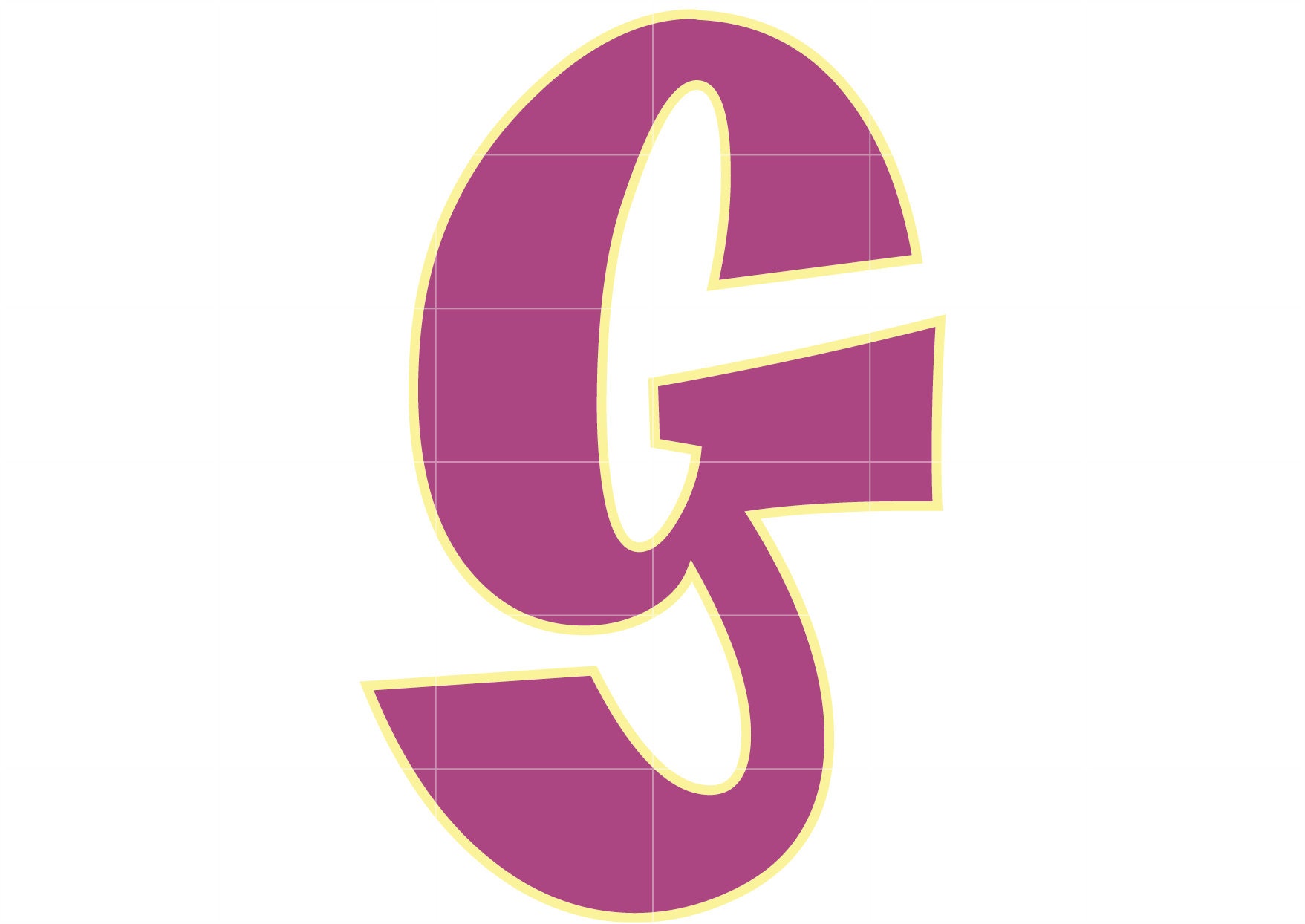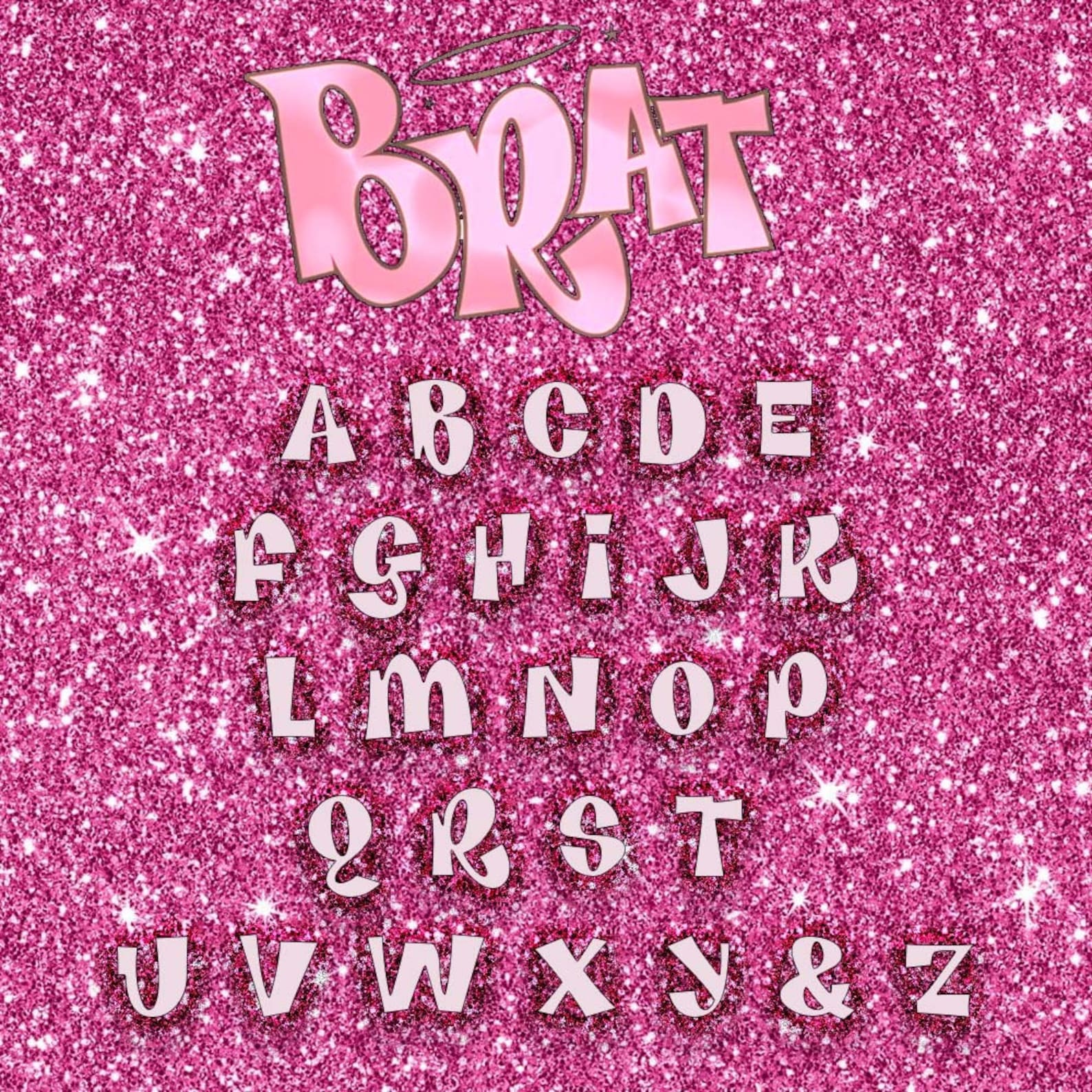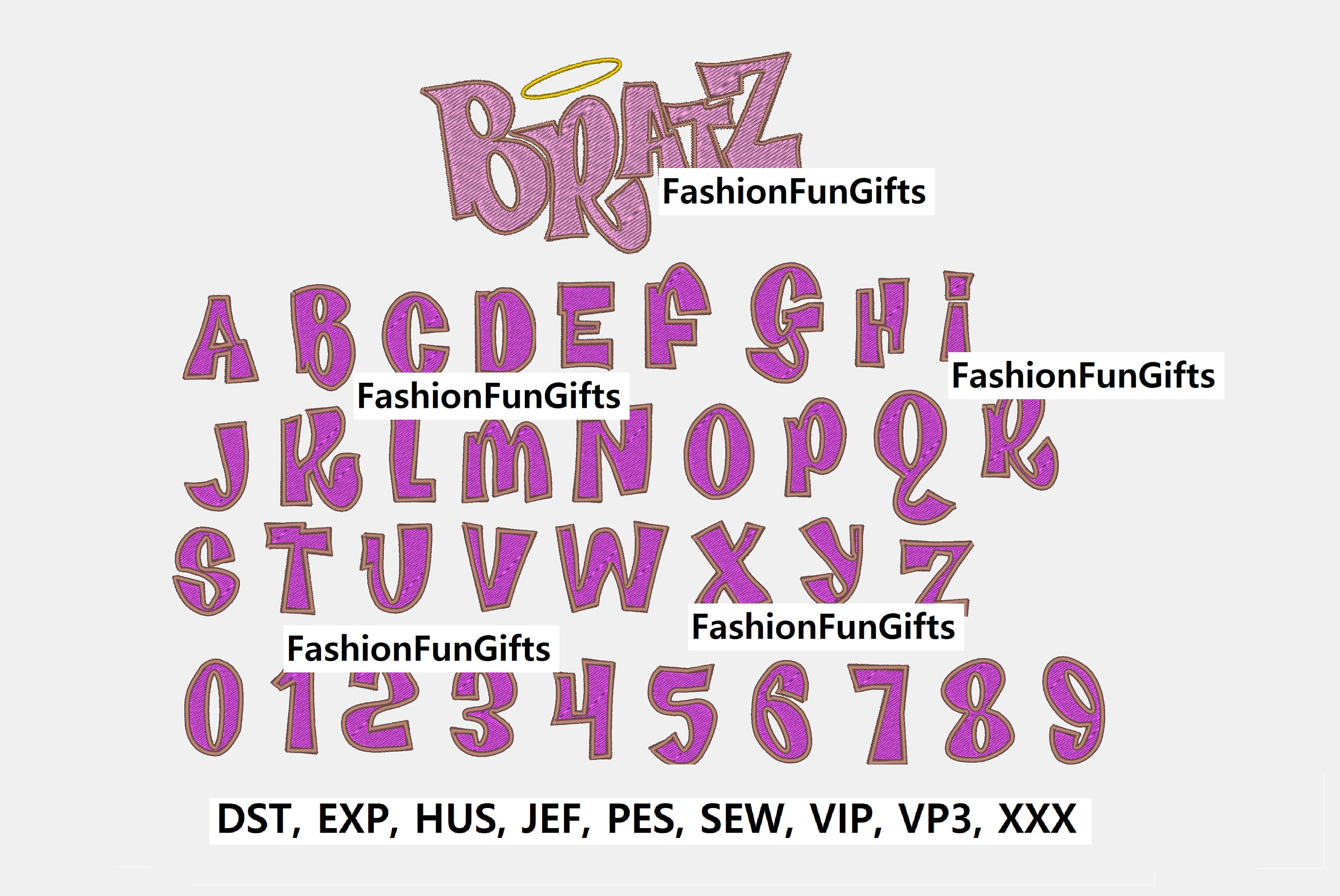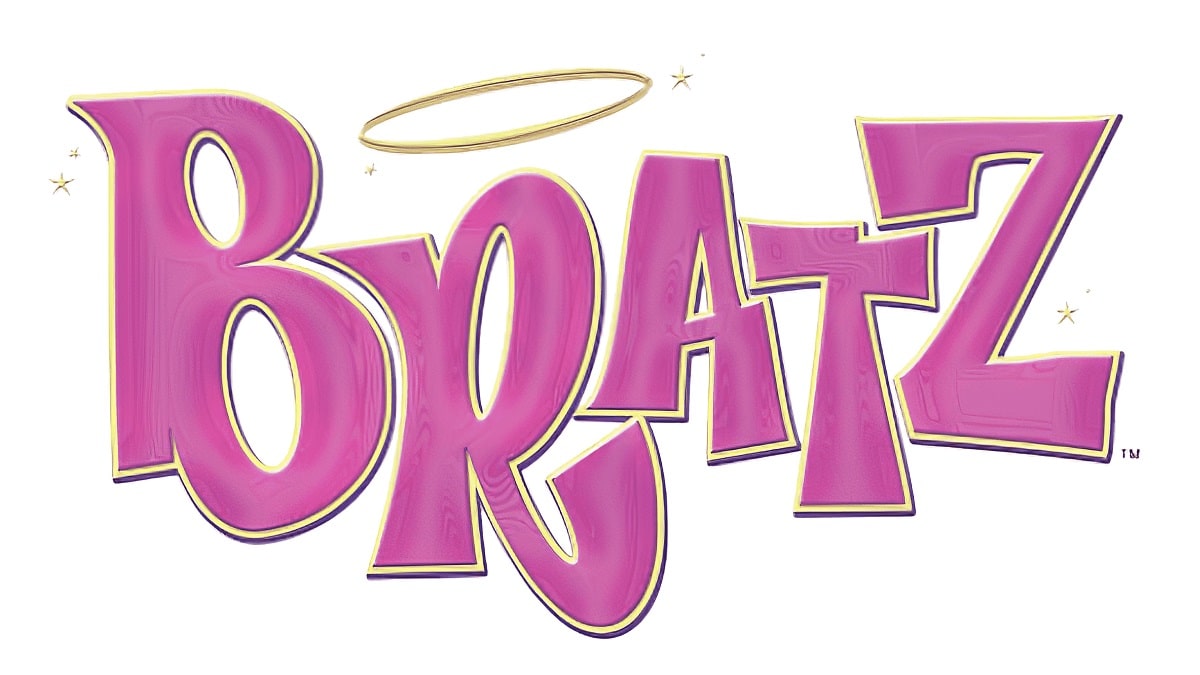
Bratz Doll Font
Bratz Doll Font - Web the bratz font is a funky decorative font inspired by the popular lettering of the bratz dolls. Our bratz font generator allows you to create your own custom text with different fonts, colors,. Web bratz font free generator. It is a fun and playful font that can.